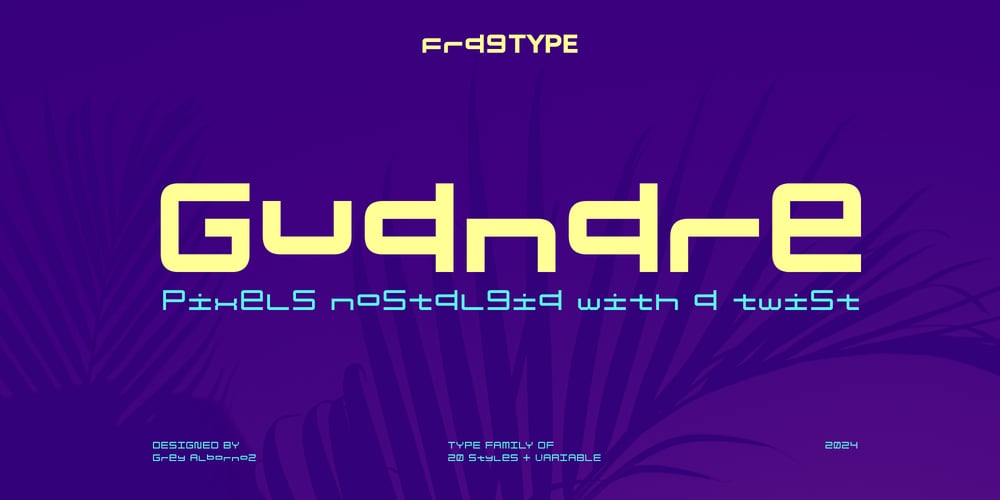
Guanare Variable Font Family was designed by Grey Albornoz and published by fragTYPE. Guanare Variable contains 1 styles and family package options. Guanare started as a drawing on a piece of paper, can I draw an “a” like this? From that question began a whole process of development that was based on the mixture of different things to reach this result. We knew that the font had to be very modular and basic, we knew that we didn’t want to have a fixed baseline and we knew that the lowercase letters were going to be the protagonists of the alphabet. With that in mind and while we were developing Guanare we were adding more features like weights, widths, language support and alternate characters. The result is a font that reflects very well our mixed idiosyncrasy where every idea has a place. We hope you enjoy using it as much as we enjoyed making it.